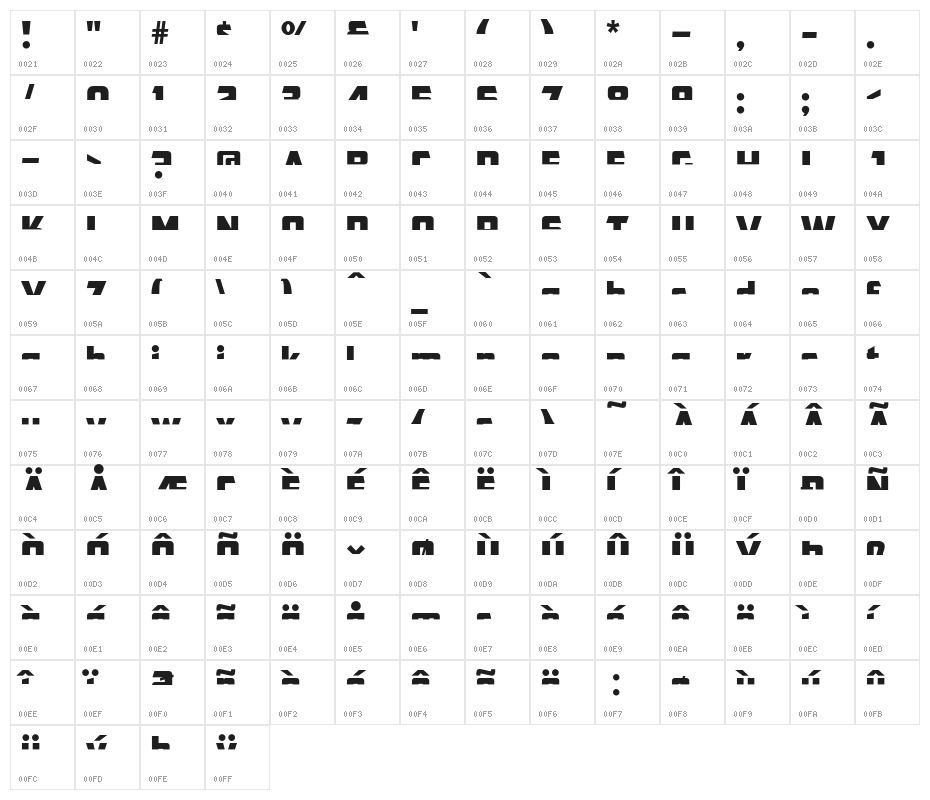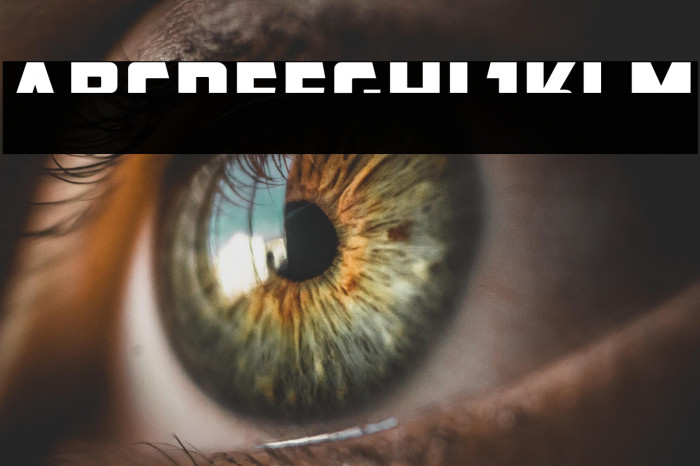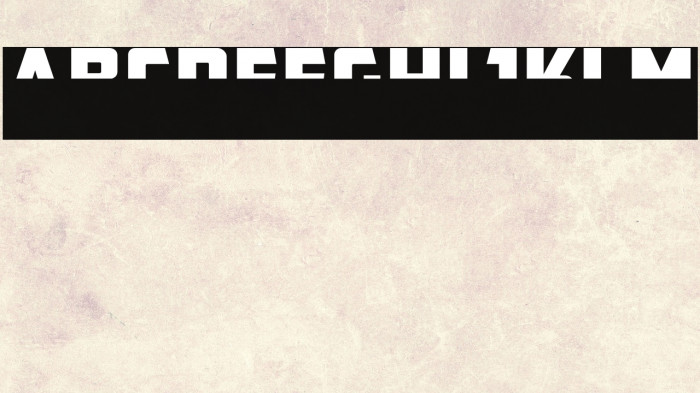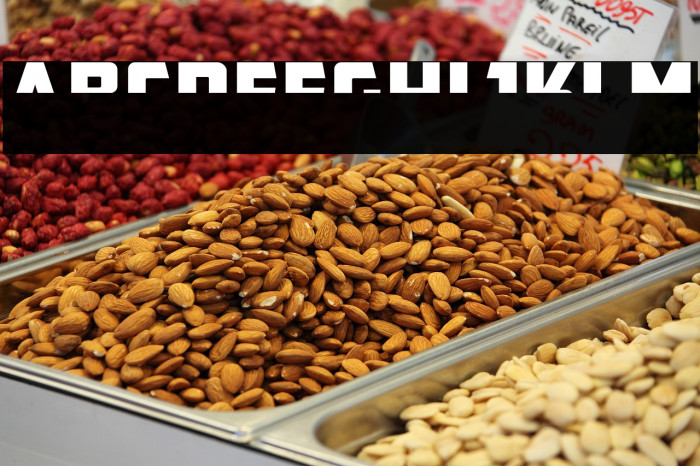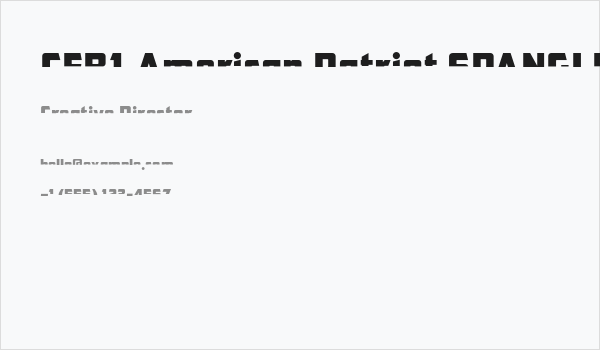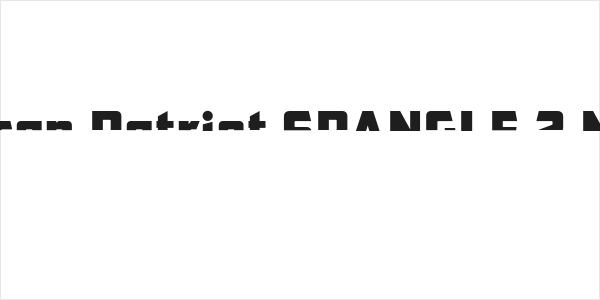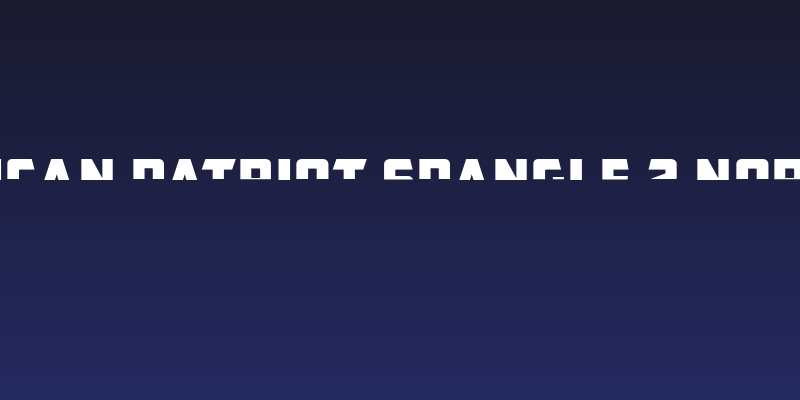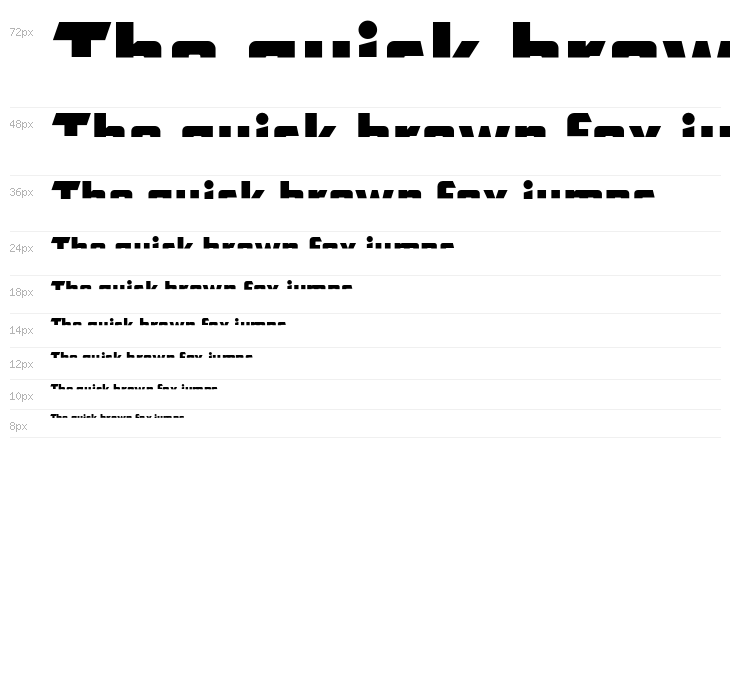
CFB1 American Patriot SPANGLE 2 Normal Italic Font
CFB1 American Patriot SPANGLE 2 Normal Italic Description
This font features a bold, geometric design with a strong, angular appearance. The characters are constructed with sharp edges and a blocky form, giving it a modern and industrial feel. The uppercase and lowercase letters maintain a consistent width, contributing to a uniform look across the typeface. The numbers and special characters follow the same stylistic approach, ensuring a cohesive appearance throughout. The italic style adds a slight slant to the characters, enhancing its dynamic and forward-moving aesthetic. This font is ideal for projects that require a bold and impactful visual statement.